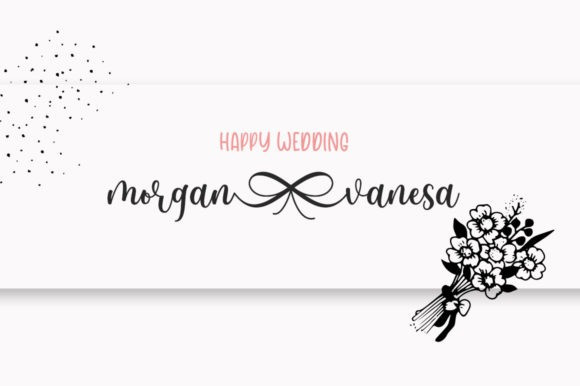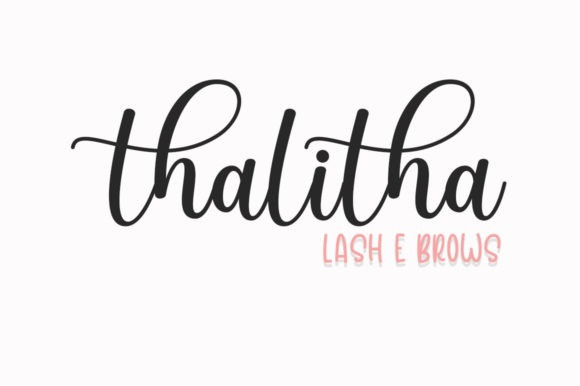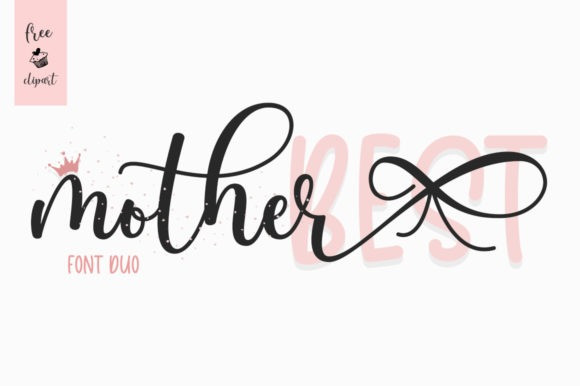
Mother Font Duo
Mother Font consists of two fonts designed to complement each other perfectly. Together or apart, these fonts are ideal for adding a chic and cheery touch to your crafts. Mother is PUA encoded which means you can access all glyphs and swashes with ease!